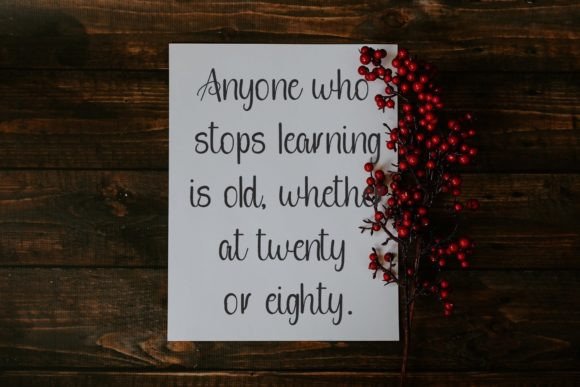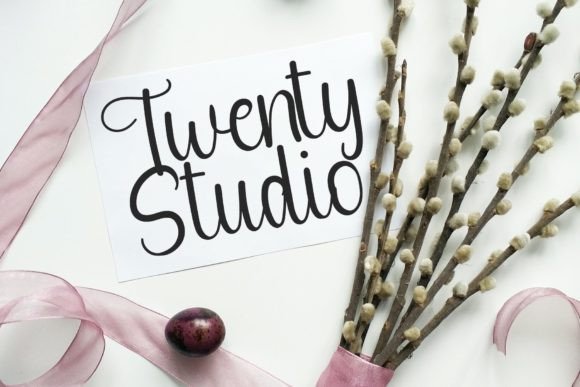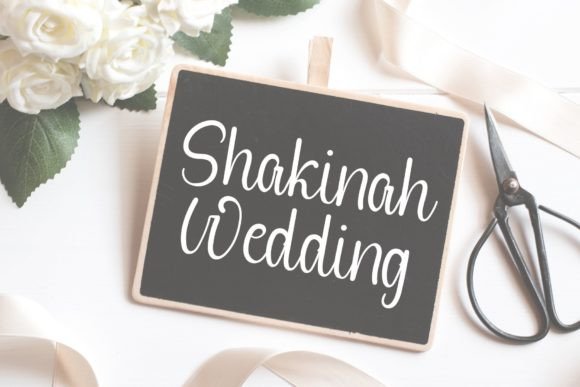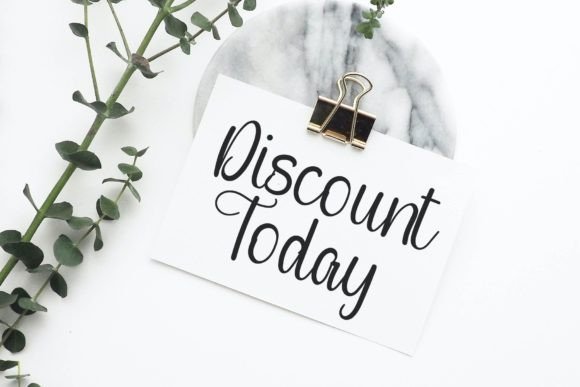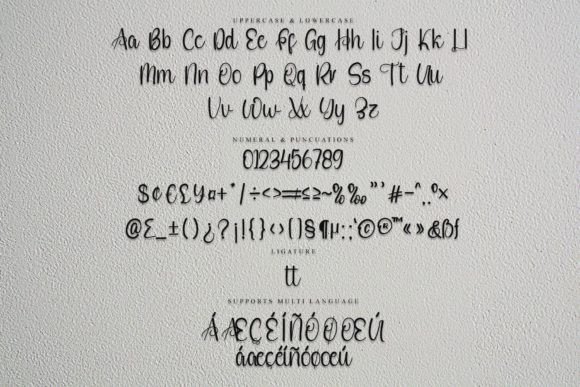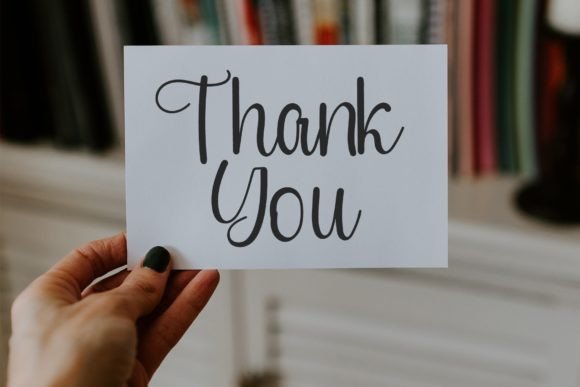
Papa Font
About Papa Font
“Papa” is a captivating and whimsical script font that adds a touch of beauty and playfulness to your designs. This font is characterized by its smooth curves, making it a perfect choice for fashion branding or editorial designs where elegance and creativity are essential. When you confidently incorporate “Papa” into your projects, you’re sure to love the delightful and enchanting results.
The fluidity of “Papa” brings a unique charm to your designs, enhancing the overall aesthetic with its graceful curves. Whether you’re working on a fashion-oriented project, creating editorial layouts, or infusing a sense of whimsy into your designs, “Papa” effortlessly adapts to your creative vision.
The beauty of “Papa” lies not only in its aesthetic appeal but also in its versatility. This script font can bring a sense of sophistication to your fashion branding, creating a visual identity that is both memorable and stylish. Additionally, when used in editorial designs, “Papa” adds a whimsical touch that can elevate the overall storytelling aspect of your content.
As you confidently integrate “Papa” into your design projects, you’ll discover its ability to transform ordinary text into a visual masterpiece. The carefully crafted curves and details of this font contribute to a delightful and engaging user experience. Whether your design requires a touch of elegance or a playful twist, “Papa” is a versatile choice that caters to a wide range of creative expressions.
In summary, “Papa” is not just a font; it’s a design asset that brings beauty and whimsy to your projects. Its smooth curves and playful character make it an ideal choice for those seeking a blend of elegance and creativity. As you explore the possibilities with “Papa,” you’ll find that it adds a magical and enchanting quality to your designs, leaving a lasting impression on your audience. Embrace the charm of “Papa” confidently, and let it weave its magic in your creative endeavors, delivering results that are both visually stunning and joyfully enchanting.